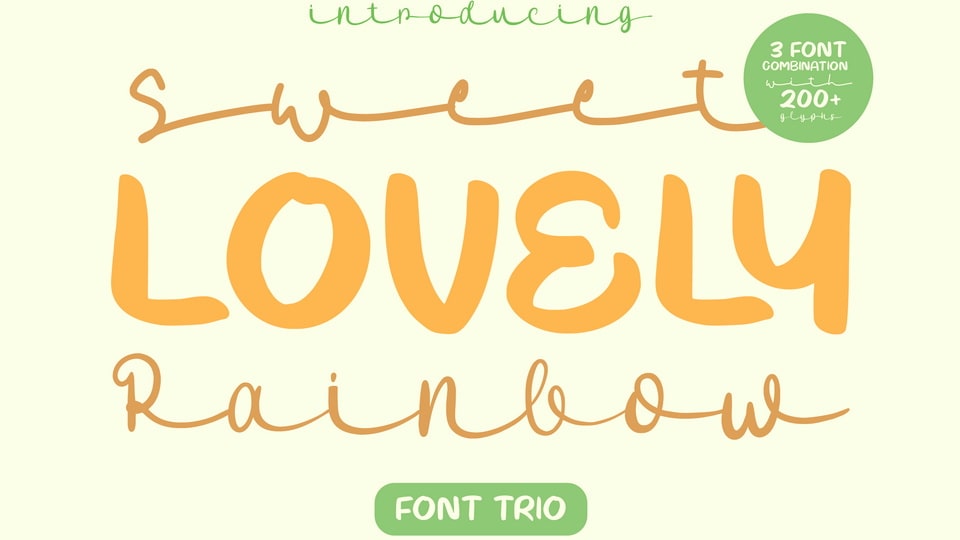
Download Sweet Lovely Rainbow fonts, a cute and relaxed handwritten typeface. Its natural and unique style makes Sweet Lovely Rainbow fonts suitable for a variety of design ideas.